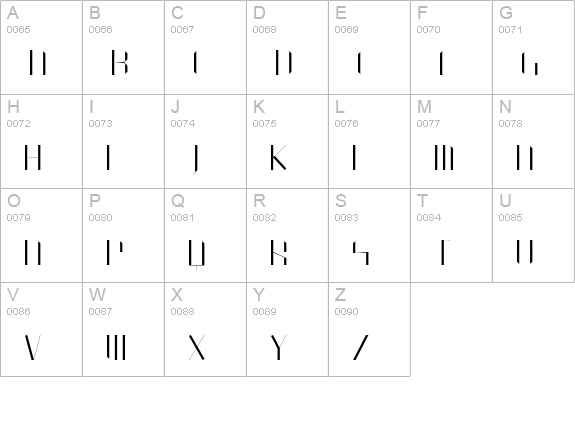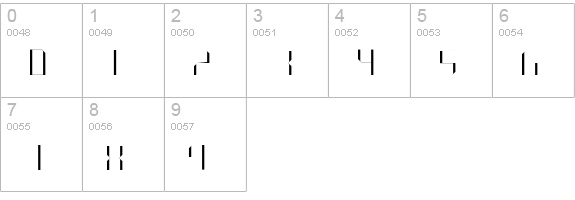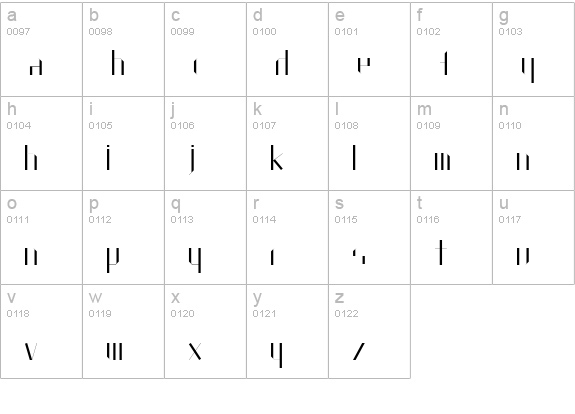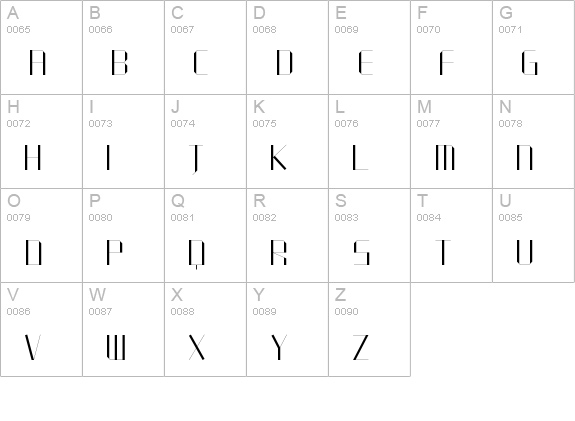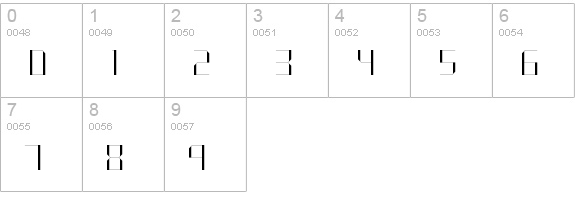
Plain Font Details
The Plain font is a versatile and classic typeface that exudes simplicity and elegance. With its clean lines and unadorned characters, it is perfect for a wide range of design projects. Whether you are creating a minimalist logo, designing a modern website, or crafting a sleek print layout, the Plain font is a go-to choice. One of the best things about the Plain font is that it is freely available to download at FontsMarket.com. This means that you can access and use this beautiful font without any cost. It is a fantastic option for individuals and businesses who are looking for a high-quality typeface without breaking the bank. The Plain font offers a timeless appeal that will never go out of style. Its simplicity allows it to blend seamlessly with any design aesthetic, making it incredibly versatile. It features a balanced and legible letterforms, making it easy to read in both small and large sizes. Whether you are a professional designer or a hobbyist, the Plain font is a valuable addition to your font library. Its clean and straightforward design makes it a reliable choice for various projects, from branding and advertising to invitations and presentations. Don't miss out on the opportunity to enhance your designs with the Plain font. Head over to FontsMarket.com and download it for free. With its timeless appeal and cost-free availability, the Plain font is a must-have for any design enthusiast.